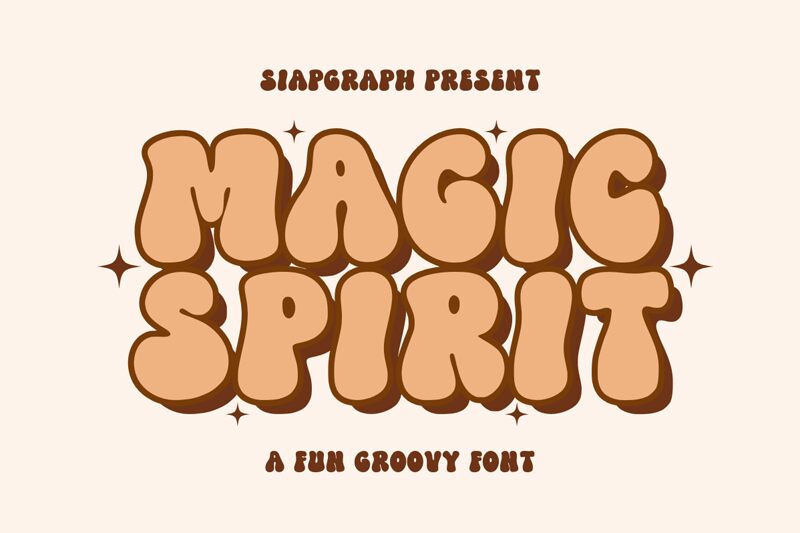
Magic Spirit font by Siapgraph is a groovy display font that draws immense inspiration from the retro style of the 60s and 70s. Designed with lengthened characters, softly rounded corners, and high contrast, the result is a humorous, nostalgic font that will brighten up every design it is used in.
Use the free font for not-so-serious brand identities, logotype, print & packaging designs, posters, or any other kind of signage. The font can also be creatively mixed into quote designs for social media or other personal/commercial projects. Other use ideas include CD covers, book covers, apparel designs, stickers, and more.